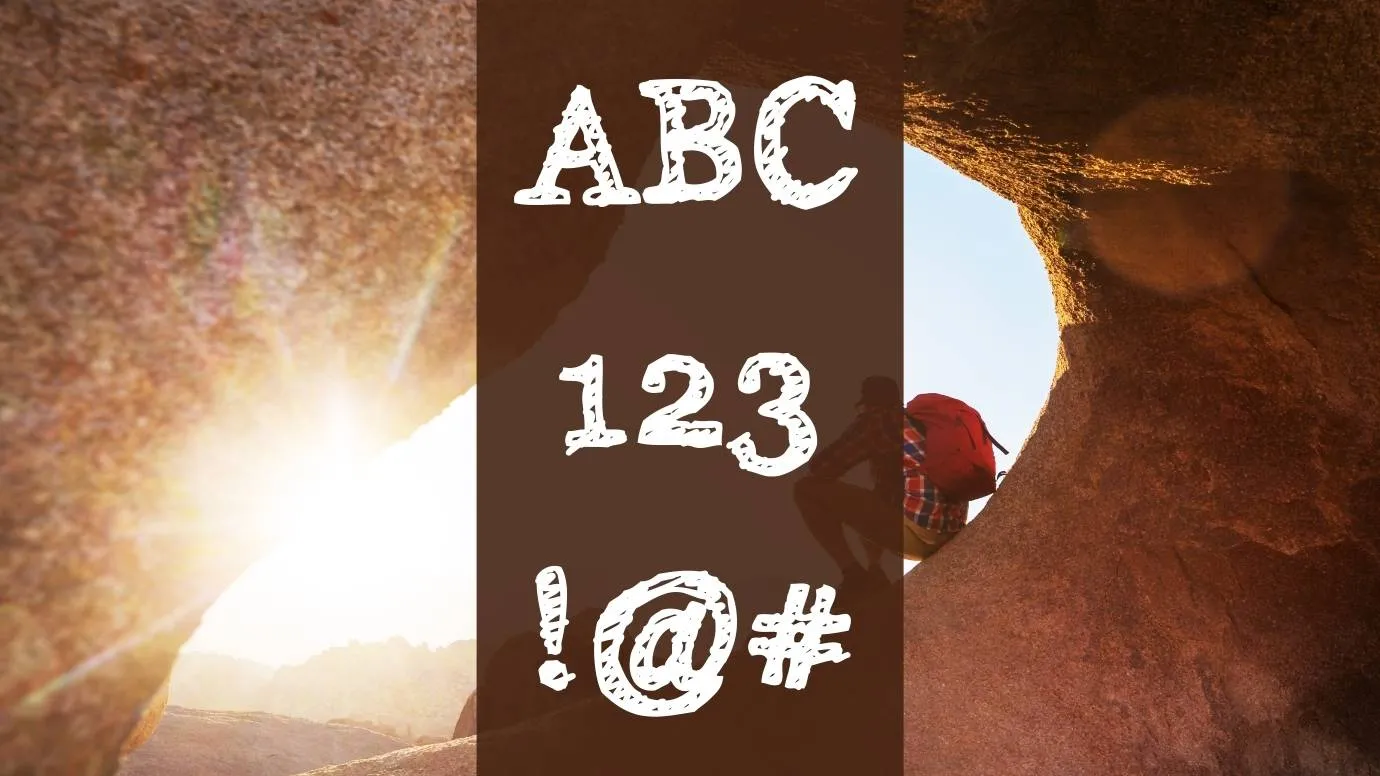
Alabama font is a comic and cartoon style font. This font is designed by Brithis typeface and lettering artist. This font is very famous among designers. This font is regular font.
You can use this in the logo and fashion designers. It is a copyrighted font. This font is similar to the Candy cane font. It is very famous due to its funny look. This font is easily readable. You can read this font from a distance.
This font has 594 characters and 544 exclusive glyphs. You can use this font with Lakers font. You can also use this font in windows and Mac OS. You can also this font in creating attractive posters.
You can use this text in printing, brochures, making invitation cards, business cards, websites, banners, posters, presentations, book covers, product packing and labeling, logos, fashion designs, store/shop names, and other designing projects.
Creator of Alabama Font
This fancy and cartoon-style font is created by British python developer Giuseppe Cunsolo and published Peqpe in 2009.
This font style is created with a unique and regular style. This single attractive style is a combination of characteristics, including Capital alphabets, Small alphabet, punctuations, glyphs, digits, symbols, special characters, and with a large number of language support,
View of Alabama Font
| Name | Alabama Font |
| Style | Cartoon |
| Designer | Giuseppe Cunsolo |
| Foundry | Peqpe |
Is Alabama easy to read?
This font is also readable. You can read this font from a distance. You can use this font to make book covers and brochures.
Is Alabama Fancy font?
This font is also a type of fancy font. This is a cartoon font.